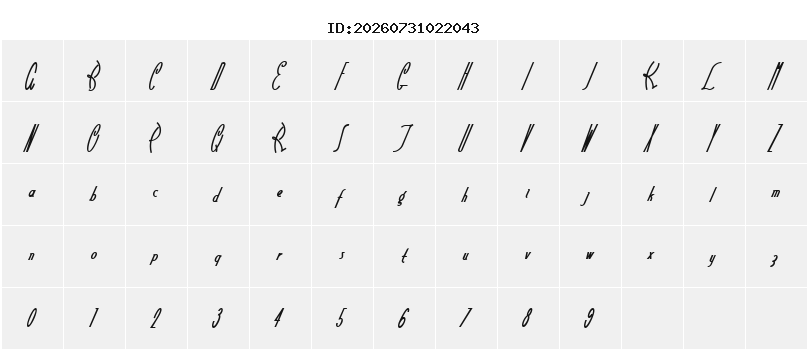
• Font Name: LittleRickeyNF
• Designer: Nick Curtis
• Manufacturer: Nick's Fonts
LittleRickeyNF.ttf is a modern, elegant sans-serif font designed for ultimate readability and visual harmony. Perfect for branding, headlines, web design, and print materials.